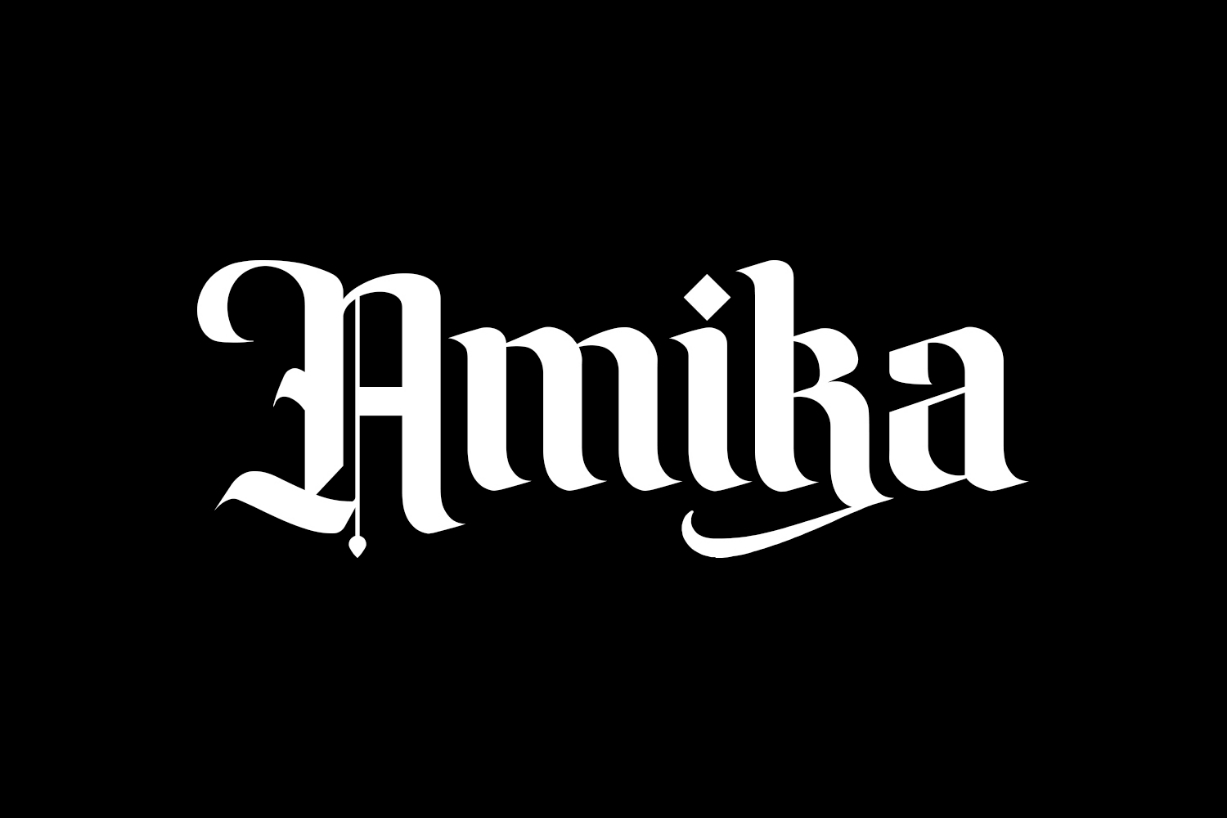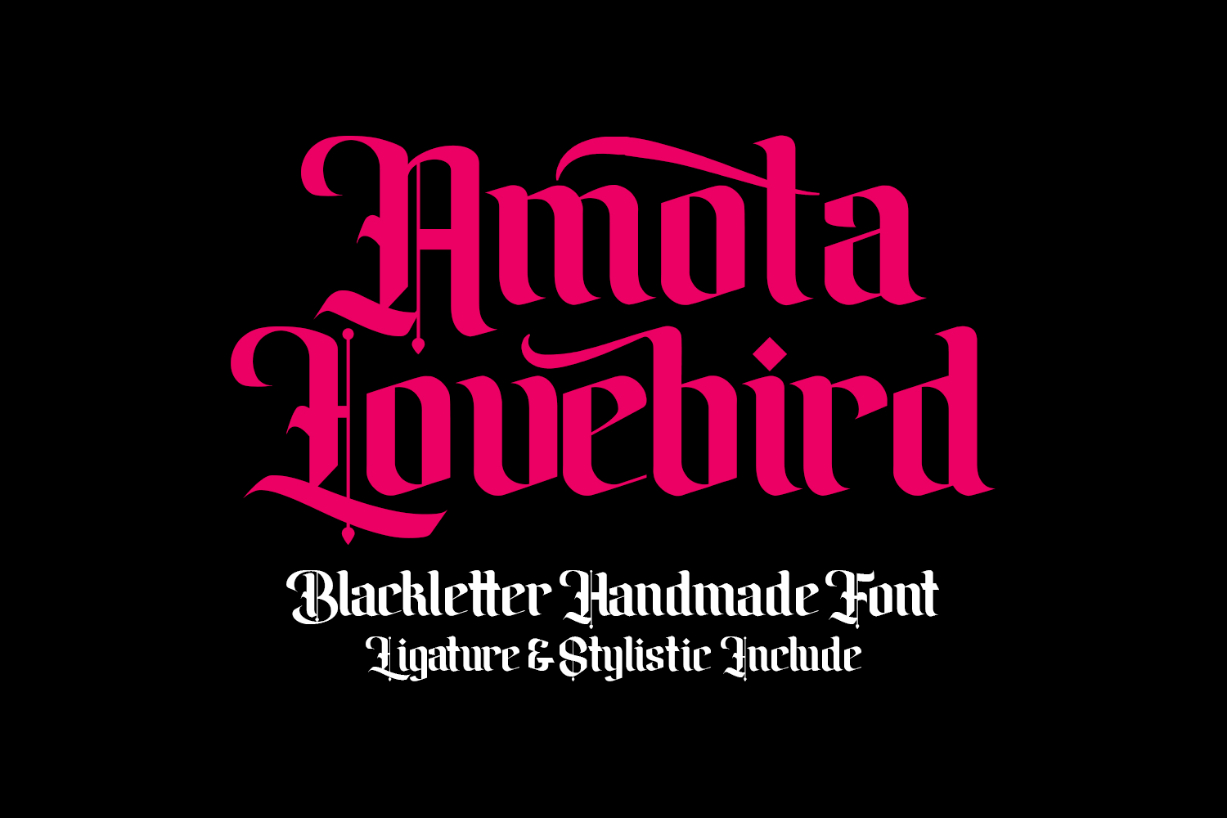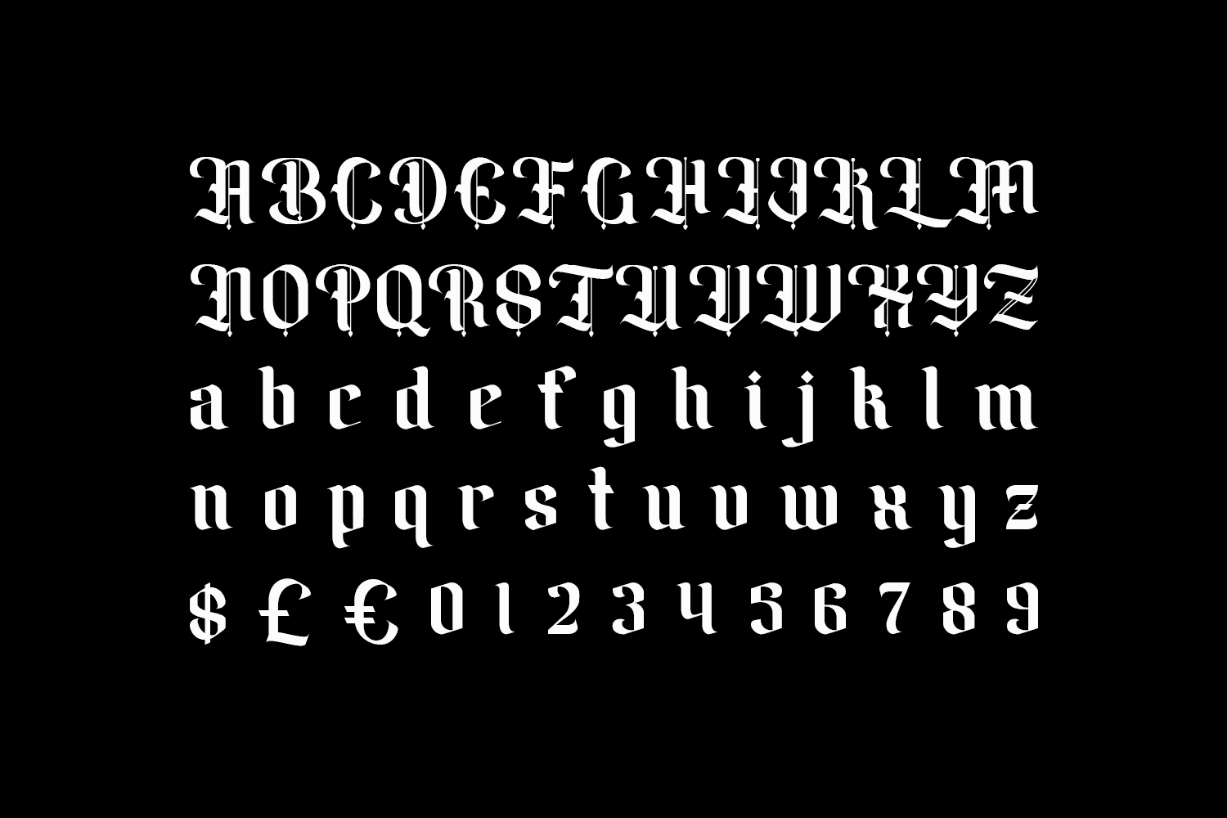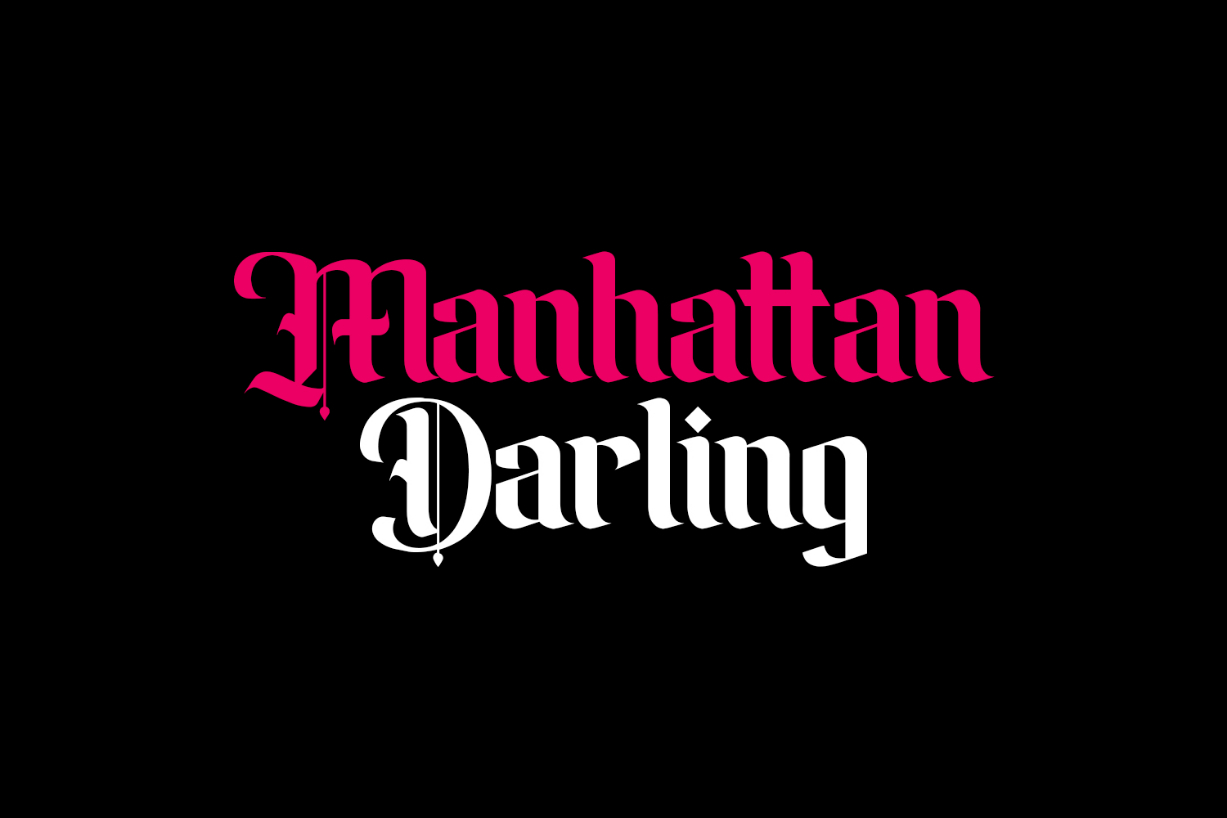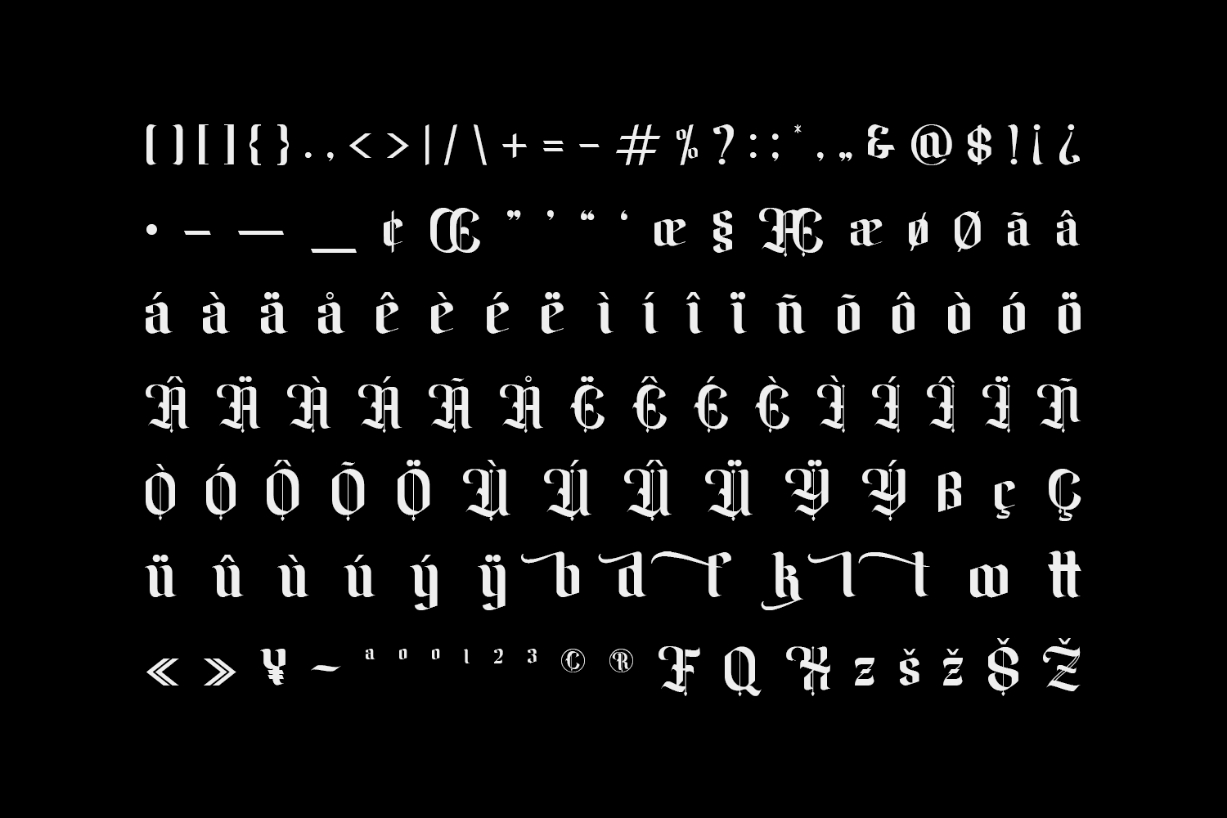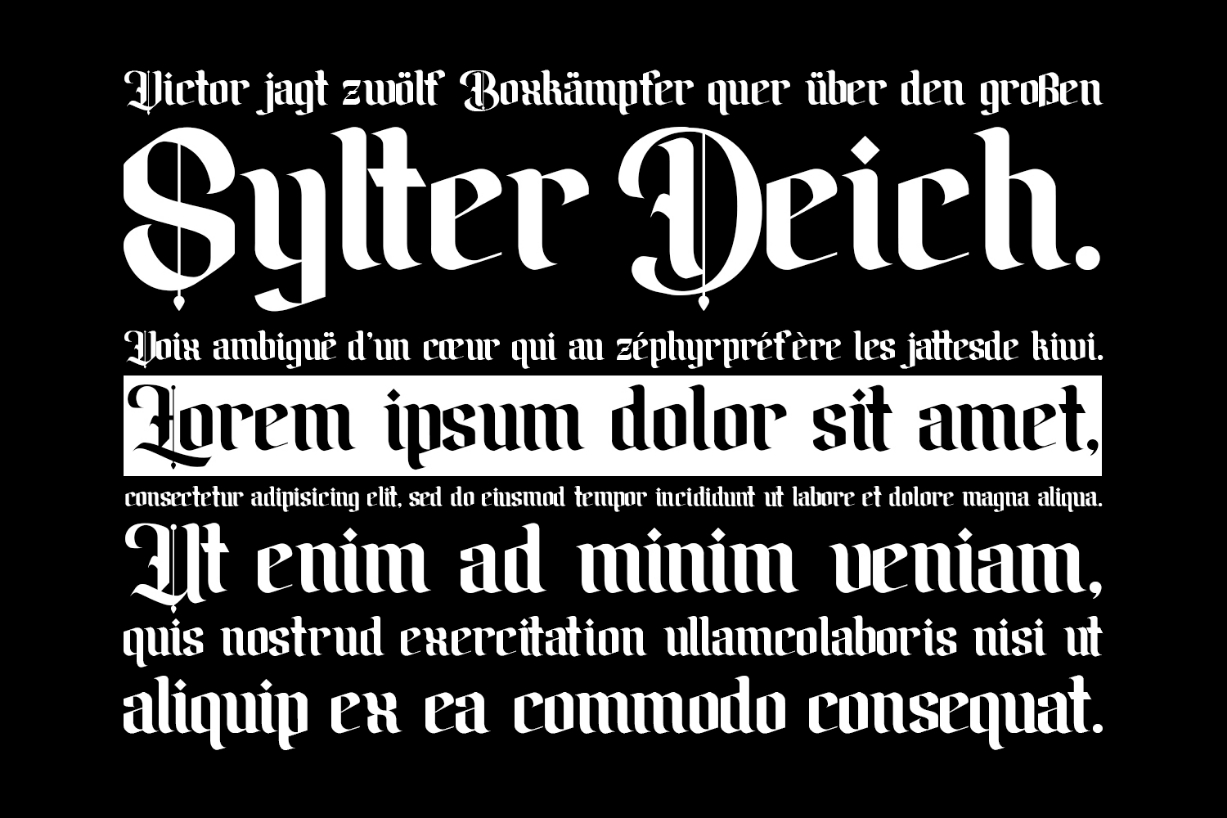
About Amika Font
Amika is a modern blackletter font. It features a classic style and gorgeous alternates. Use it to add that special retro touch to any design idea you can think of!